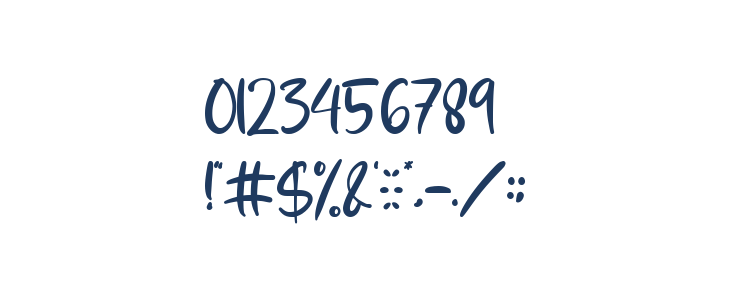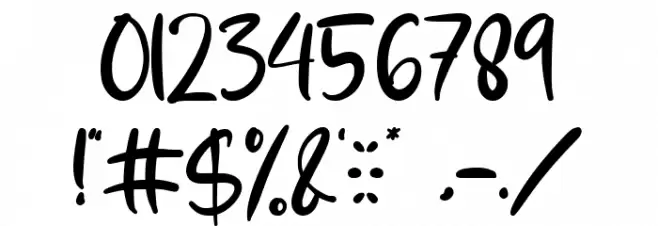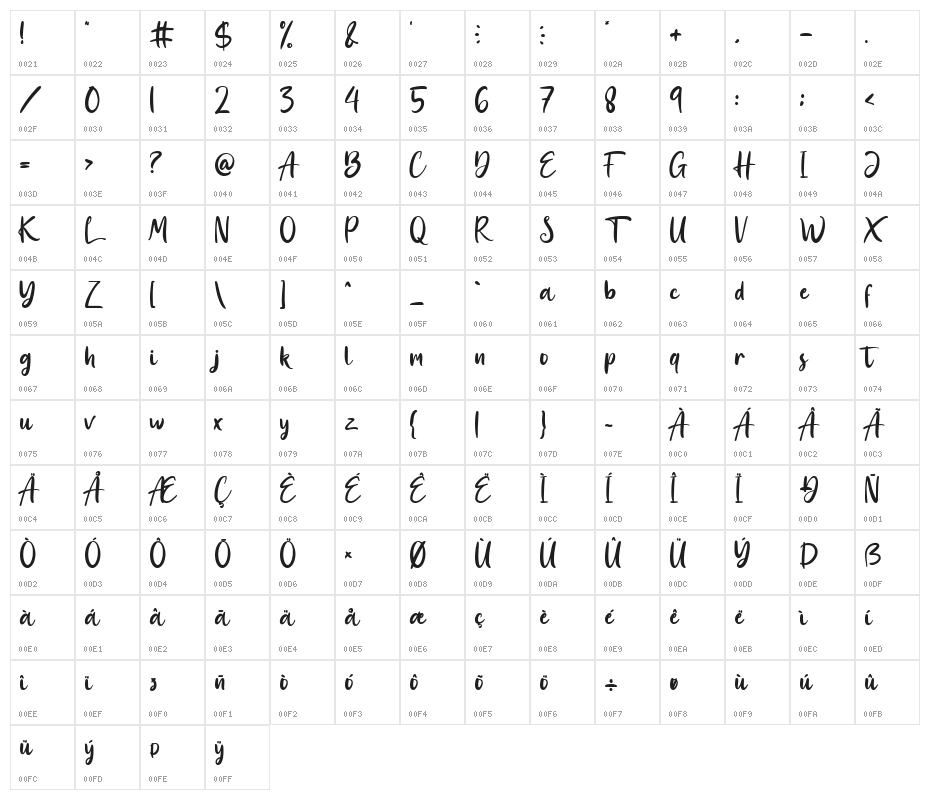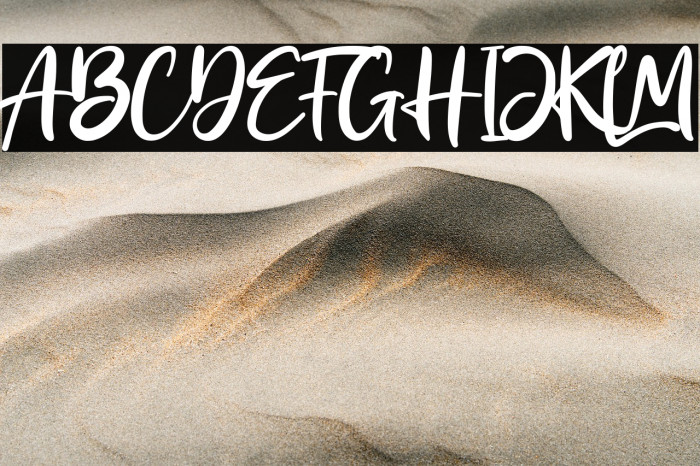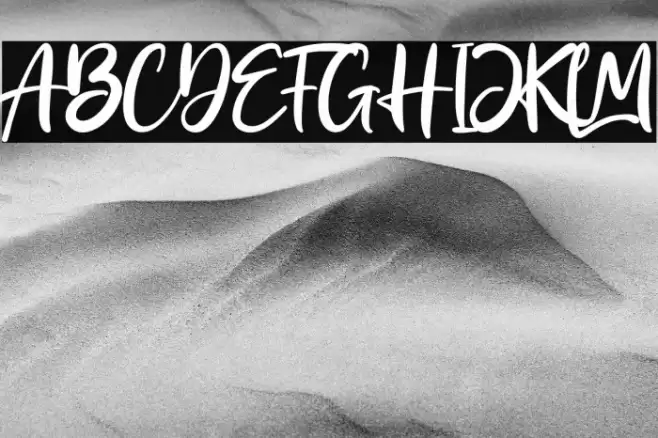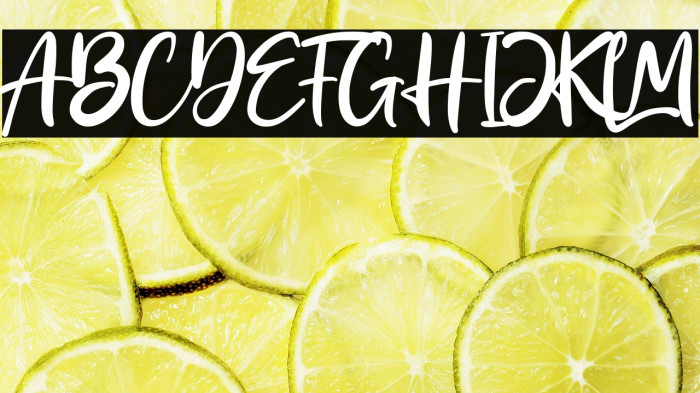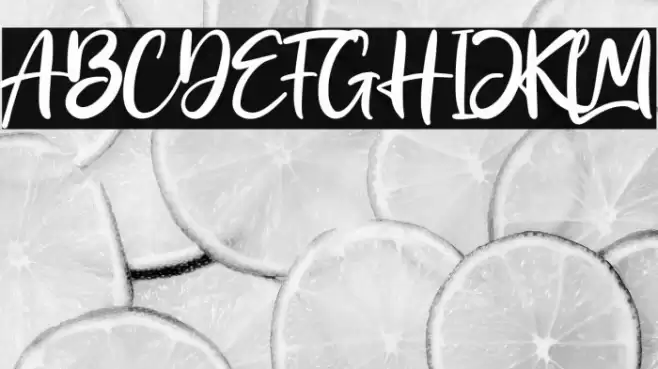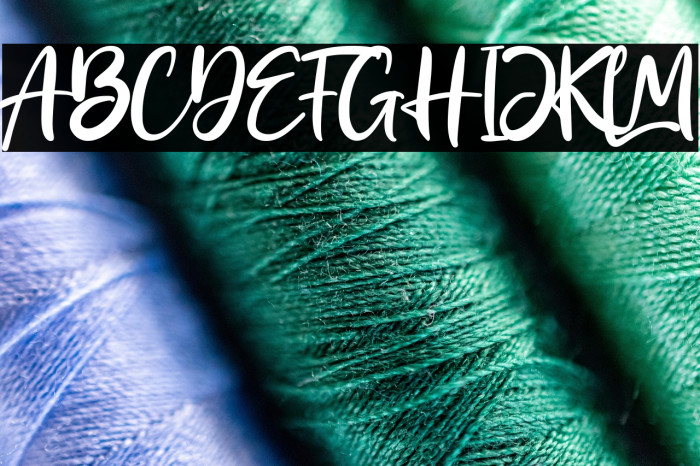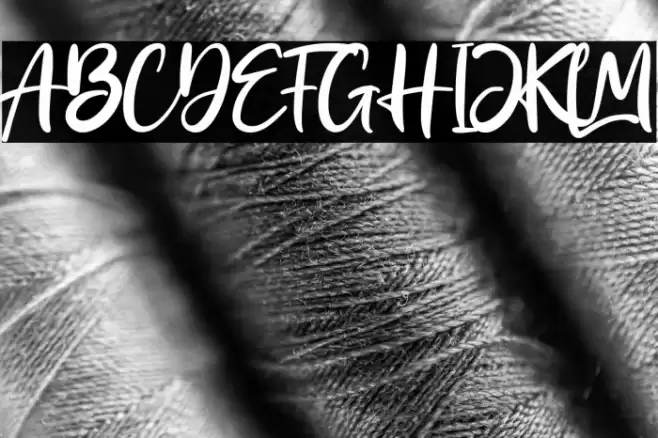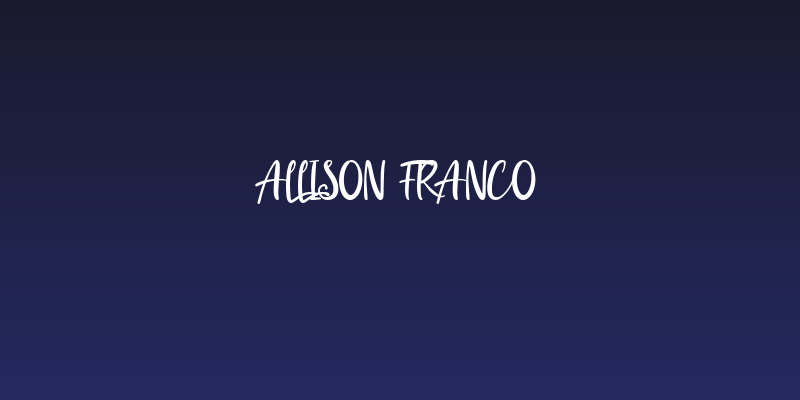
Allison Franco Font
Allison Franco Description
This font features a dynamic and lively script style with a handwritten appearance. The characters are bold and fluid, with a natural flow that mimics casual handwriting. The uppercase letters are slightly larger and more prominent, while the lowercase letters maintain a consistent size and style. The numbers are clear and easy to read, matching the playful yet elegant aesthetic of the letters. Special characters are included, adding versatility to the font. The overall look is modern and stylish, making it suitable for a variety of creative projects.